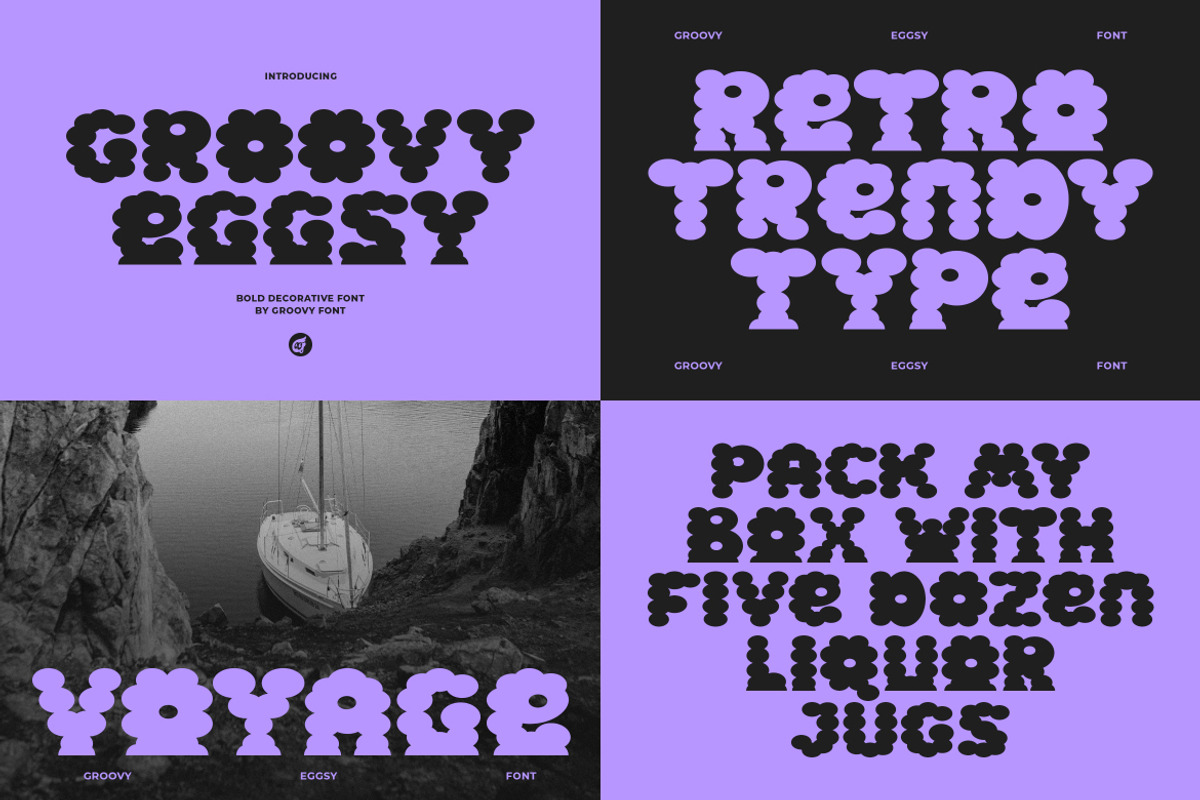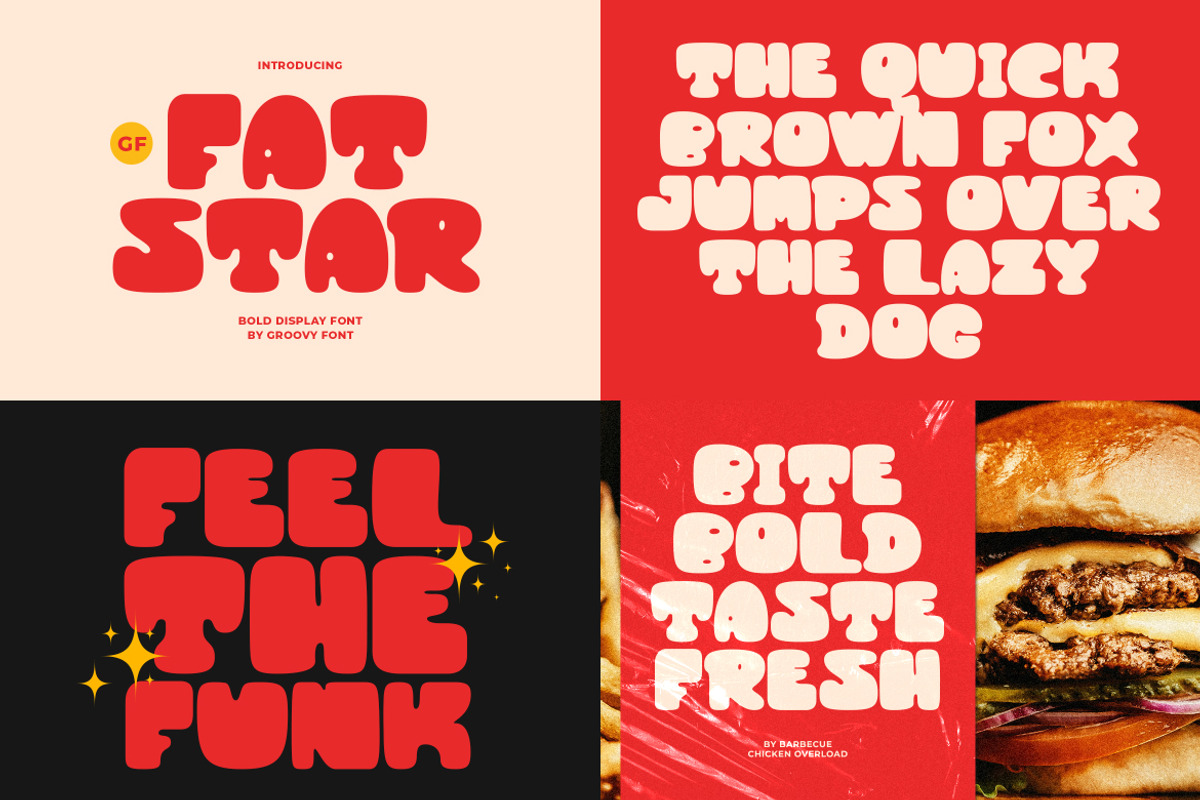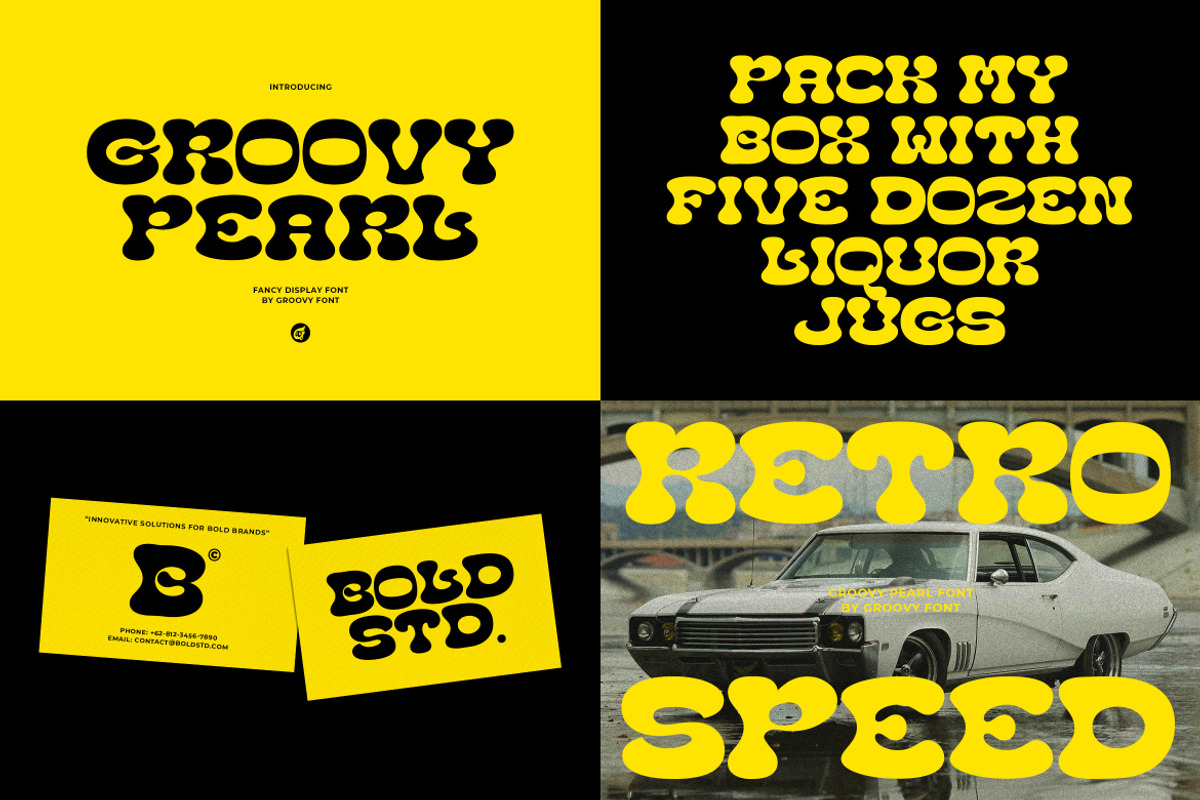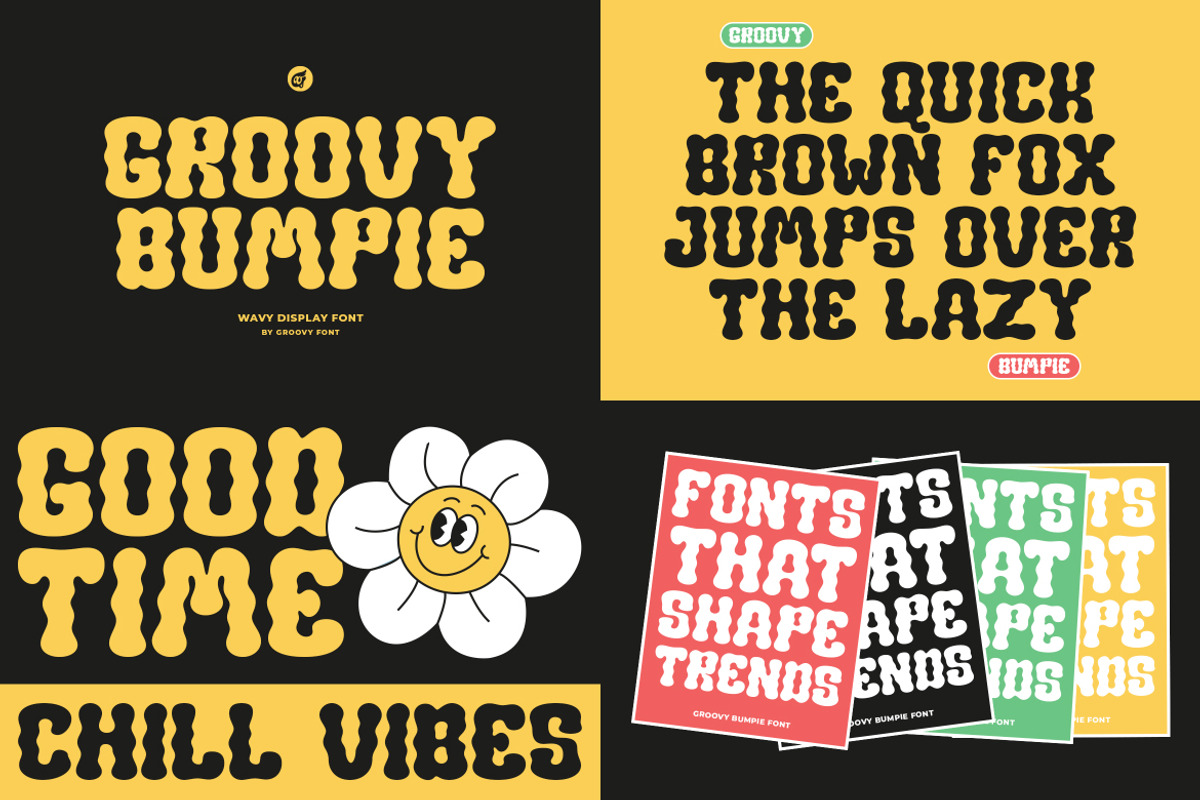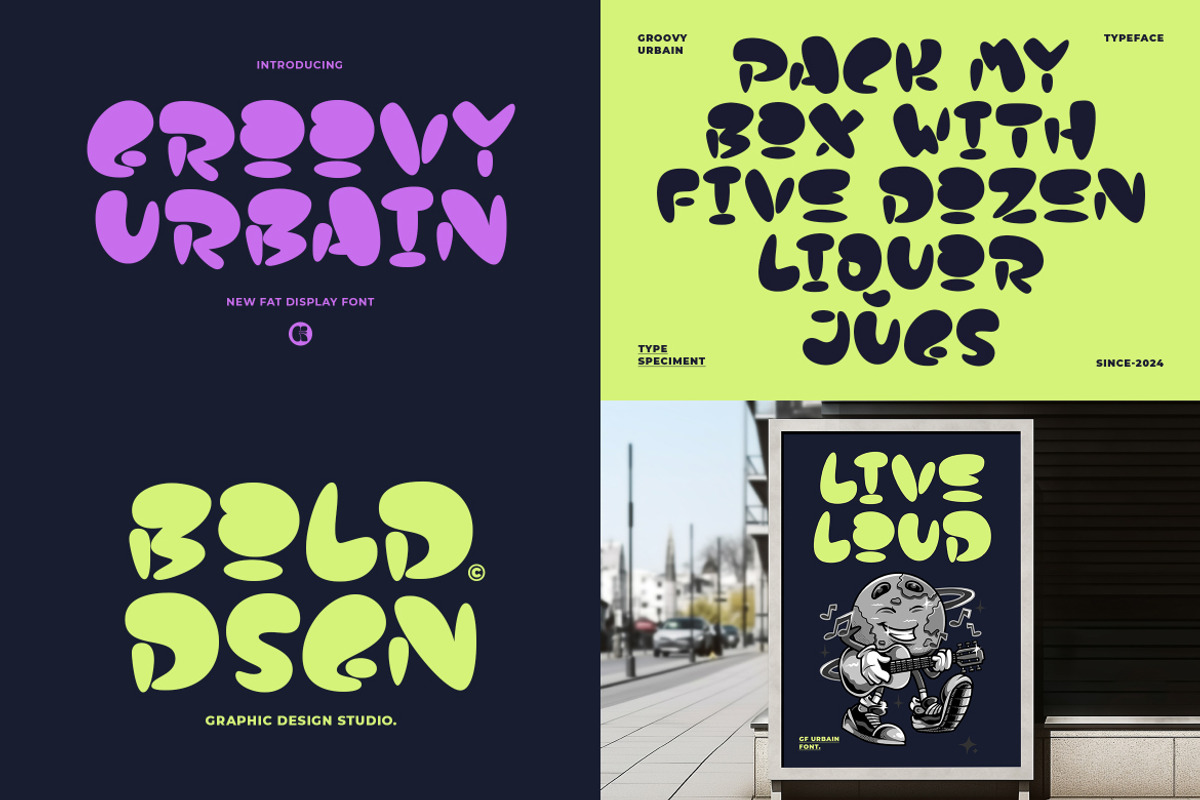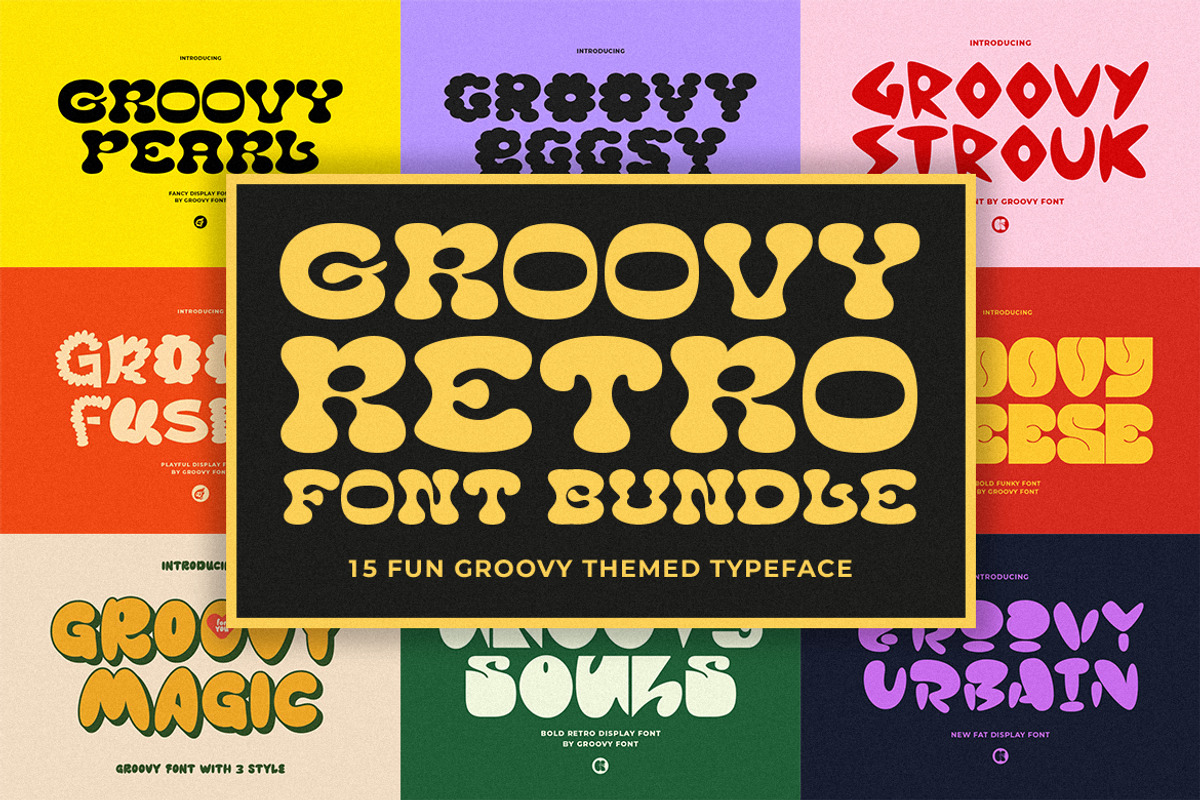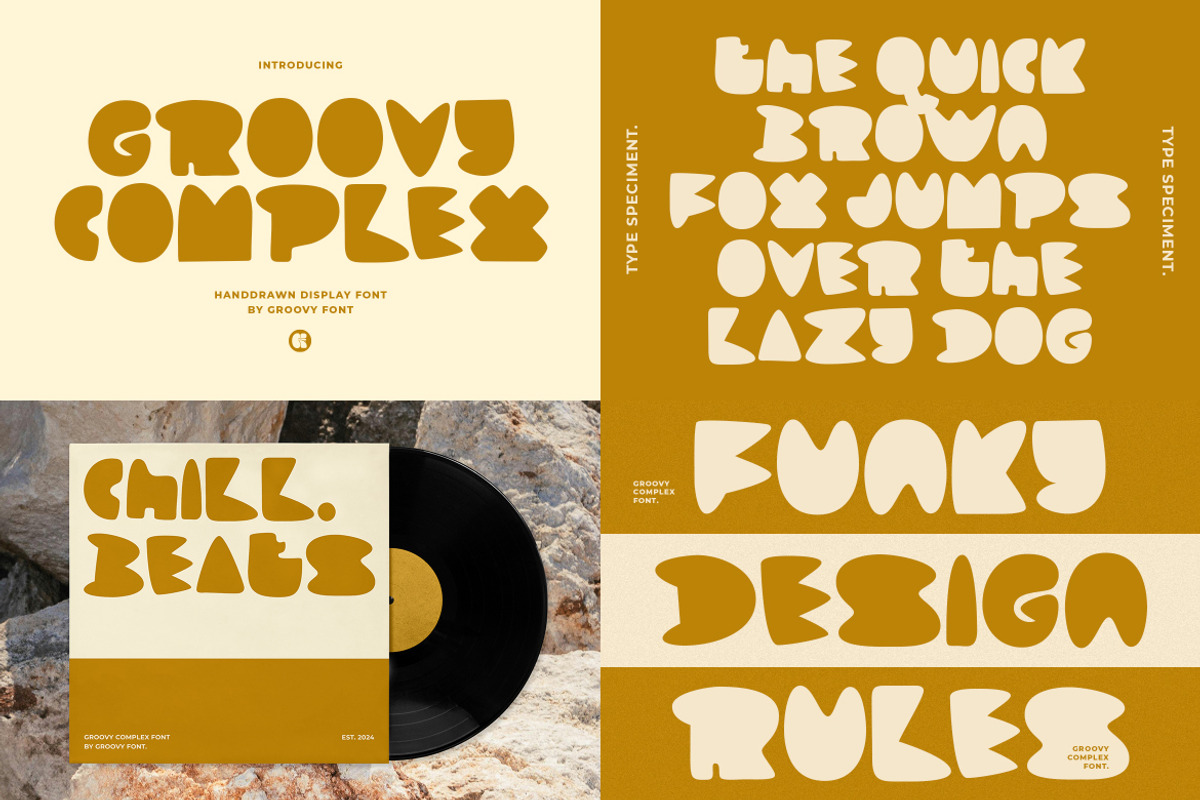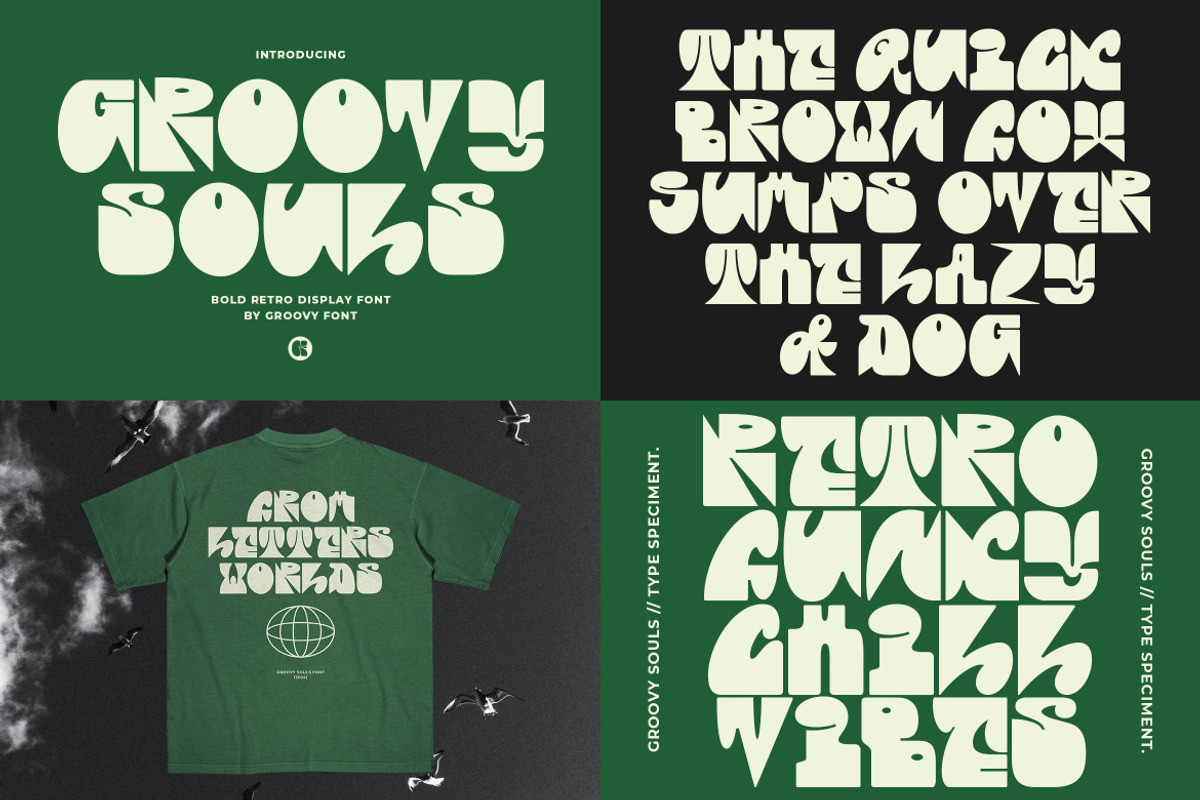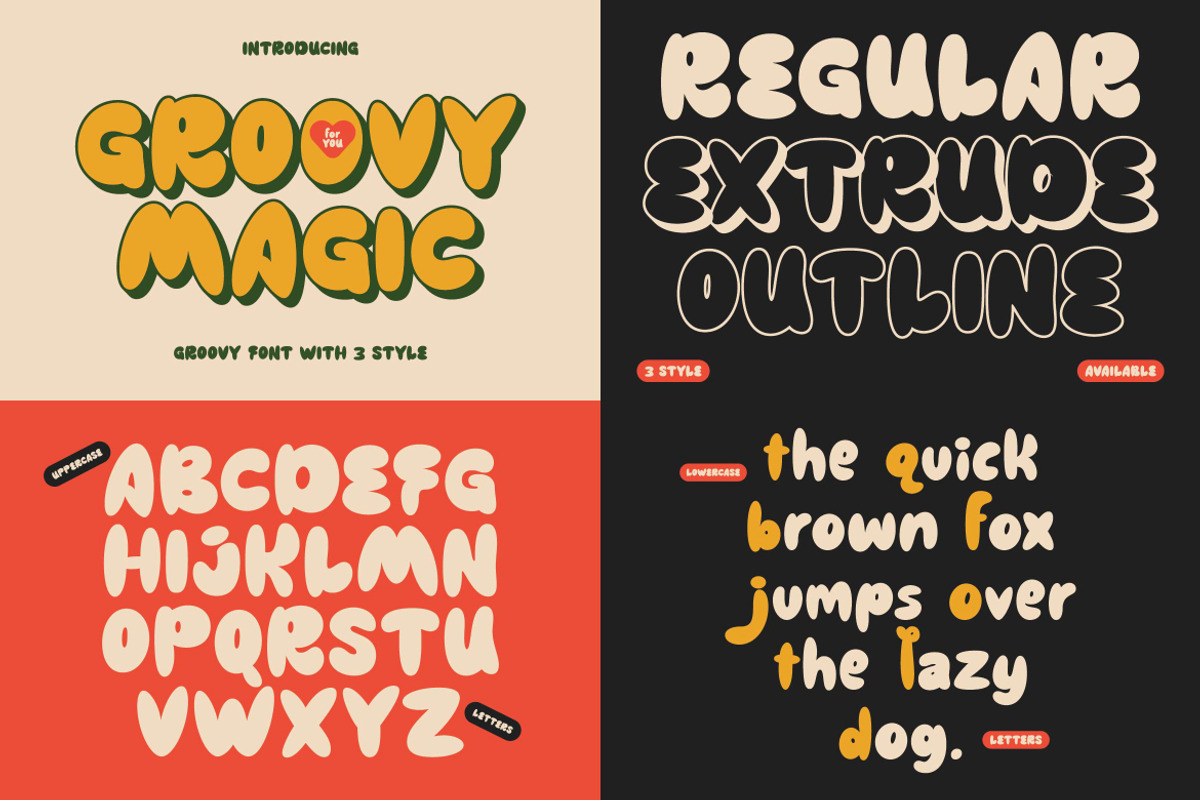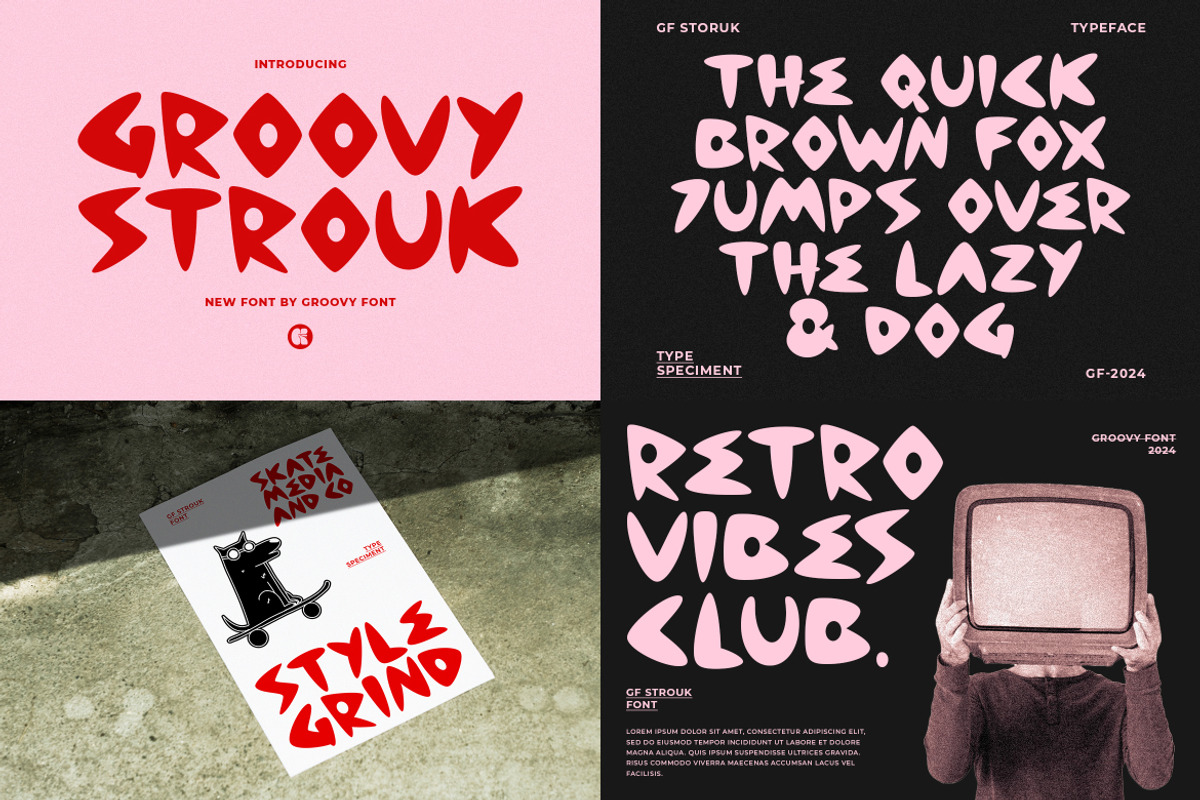
The Groovy Retro Font Bundle
Comprises 15 stylish and versatile fonts with a nostalgic retro vibe.
Perfect for vintage-themed designs, branding, and advertisements, these fonts are ideal for creating eye-catching logos and captivating posters.